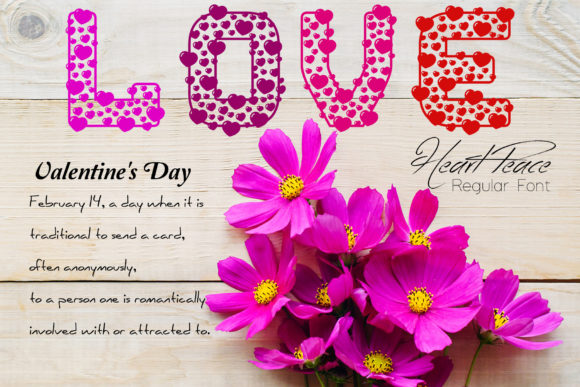
Welcome to the realm of Heart Peace, a display font that breathes life into your designs with its captivating aura of love and enchantment. Crafted with meticulous attention to detail, this font is more than just a collection of characters; it's a portal to a world of boundless creativity and self-expression.
Let your imagination soar with Heart Peace, a display font that captivates hearts and ignites the desire to create. Immerse yourself in its delicate strokes and whimsical charm, and discover a world where love and beauty dance harmoniously. With its soft edges and flowing curves, Heart Peace transforms ordinary words into expressions of adoration and affection.
With each character lovingly crafted, Heart Peace invites you on a journey of creative exploration. Whether you're designing heartfelt greetings, enchanting invitations, or captivating social media posts, this font adds a touch of magic to your every creation. Let your designs radiate with warmth and charm, leaving a lasting impression on those who encounter them.
Unleash the power of love with Heart Peace, the display font that speaks directly to the heart. Its intricate details and enchanting aura make it the perfect choice for expressing emotions in a unique and captivating way. Let your designs carry messages of affection, appreciation, and joy, leaving a trail of smiles wherever they go.
Step into the realm of Heart Peace and let your creativity blossom. Discover the endless possibilities that await you as you explore this enchanting display font. From enchanting wedding invitations to heartfelt love letters, Heart Peace transforms the ordinary into the extraordinary. Embark on a creative odyssey where love and beauty intertwine, leaving a lasting impression on hearts and minds alike.